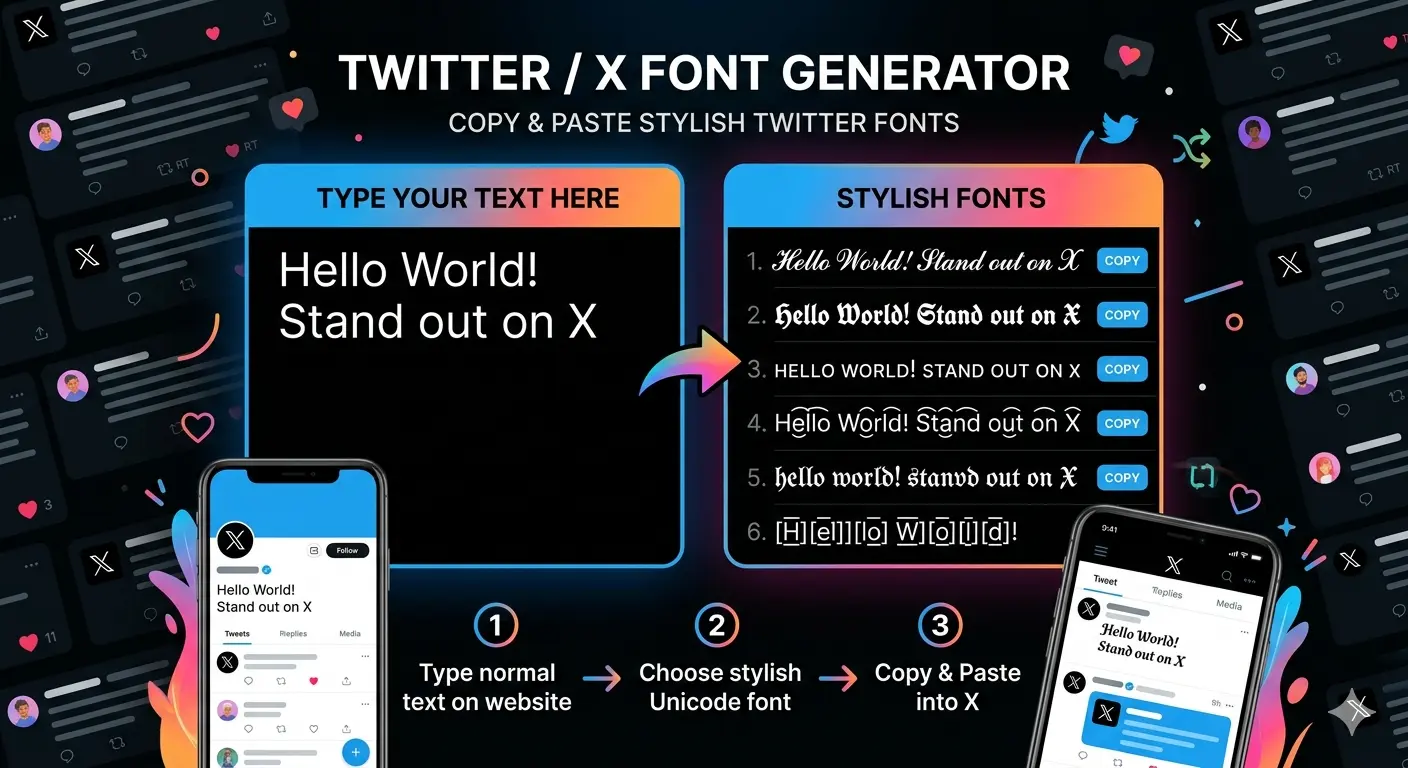
Twitter Font Generator
Unlock high-impact typography for your social presence. Our advanced Unicode engine generates unique, copy-and-pasteable styles to make your bio and posts stand out instantly.
Premium Variations
How to Use the Twitter Font Generator
Enter your text
Type your tweet, username, or bio into the generator box above.
Browse generated font styles
The tool instantly creates dozens of variations using Unicode characters.
Copy and paste into Twitter
Click the copy button next to any style and paste it directly into your Twitter/X profile or tweet.
Because these styles rely on Unicode characters, they work across most modern devices and browsers.
• Normal: Twitter
• Bold: 𝗧𝘄𝗶𝘁𝘁𝗲𝗿
• Script: 𝓣𝔀𝓲𝓽𝓽𝓮𝓻
• Aesthetic: 𝓉𝓌𝒾𝓉𝓉𝑒𝓇
• Small Caps: ᴛᴡɪᴛᴛᴇʀ
• Gothic: 𝕿𝖜𝖎𝖙𝖙𝖊𝖗
• Strikethrough: t̶w̶i̶t̶t̶e̶r̶
What a Twitter Font Generator Actually Does
A Twitter font generator is a simple tool that converts regular text into Unicode-based character styles.
Instead of installing new fonts, the generator replaces each letter with a visually similar Unicode character.
Normal text:
Twitter
Unicode styled text:
𝕋𝕨𝕚𝕥𝕥𝕖𝕣
These characters are part of the Unicode standard, which contains thousands of symbols used across digital systems.
If you’re curious about how this system works, our guide on Unicode fonts explained explores the topic in more detail.
How Twitter Fonts Actually Work
Twitter’s interface uses its own typeface called Chirp, which was introduced in 2021 as part of the platform’s design update.
However, Chirp only controls the appearance of Twitter’s interface. Users cannot change it inside the platform.
Font generators work differently. Instead of modifying fonts, they use Unicode characters that visually resemble styled letters.
Normal text:
Twitter
Styled Unicode version:
𝓣𝔀𝓲𝓽𝓽𝓮𝓻
Because these characters are recognized across browsers and apps, they can be pasted into tweets, bios, and usernames without breaking formatting.
To understand the technical differences between typography terms, you can also read the difference between fonts, typefaces, and Unicode styles.
Font StyleExampleBest Use
Bold𝗧𝘄𝗶𝘁𝘁𝗲𝗿Thread titles and emphasis
Script𝓣𝔀𝓲𝓽𝓽𝓮𝓻Profile bios
Small CapsᴛᴡɪᴛᴛᴇʀMinimal usernames
Gothic𝕿𝖜𝖎𝖙𝖙𝖊𝖗Gaming profiles
Strikethrought̶w̶i̶t̶t̶e̶r̶Humor or edits
Aesthetic𝓉𝓌𝒾𝓉𝓉𝑒𝓇Creative bios
Different styles create different moods depending on how you use them.Some creators prefer decorative styles like gothic lettering, while others use script text to give their profile a softer aesthetic.
• Twitter display name – helps your profile stand out in replies
• Twitter bio – adds personality to your profile
• Tweets – highlight important words
• Thread titles – attract attention
• Usernames – create a unique online identity
Once you generate your text, you can paste it in several places across Twitter/X.
Stylized text can make a Twitter profile more visually distinctive, but moderation matters.
Keep readability in mind
Some decorative styles look impressive but are difficult to read in long sentences.
Avoid overusing styles
Mixing too many fonts in one tweet can make text messy. Most creators use stylized fonts only for emphasis.
Match the tone of your profile
Minimal styles work well for professional accounts, while playful fonts are common in personal or creative profiles.
Most Unicode characters work across modern browsers and smartphones. However, some characters may appear slightly different depending on the device or operating system.
This can happen if
• the device does not support a specific Unicode character
• the app uses a different fallback font
• the operating system is outdated
If you’ve ever noticed this issue, our guide explaining why some fancy fonts don’t work on certain apps or devices covers it in more detail.
Bold Twitter Fonts
𝗧𝘄𝗶𝘁𝘁𝗲𝗿
Aesthetic Twitter Fonts
𝓉𝓌𝒾𝓉𝓉𝑒𝓇
Small Twitter Fonts
ᴛᴡɪᴛᴛᴇʀ
Gothic Twitter Fonts
𝕿𝖜𝖎𝖙𝖙𝖊𝖗
Script Twitter Fonts
𝓣𝔀𝓲𝓽𝓽𝓮𝓻
Twitter font generators work entirely online because they convert text into Unicode characters already supported by modern systems.
The process is always the same:
1. Type text
2. Generate styled characters
3. Copy and paste the result
Twitter Font Generator FAQ
Twitter uses a typeface called Chirp for its interface.
Yes. They convert text into Unicode characters and do not require downloads or access to your account.
Unicode characters may appear slightly different depending on the device, operating system, and browser.
Yes. Unicode text works on platforms like Instagram, Discord, Facebook, and messaging apps.
A small change in typography can completely change how text feels on the screen. While most tweets use the same plain formatting, a subtle Unicode style can make a username, bio, or headline more noticeable in the timeline. That’s exactly what a Twitter font generator allows you to do turn ordinary text into something visually distinctive without changing the words themselves.